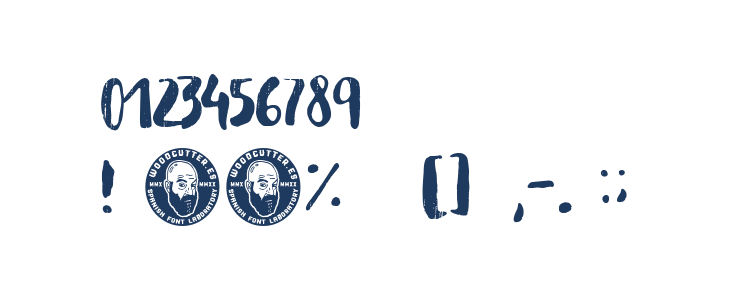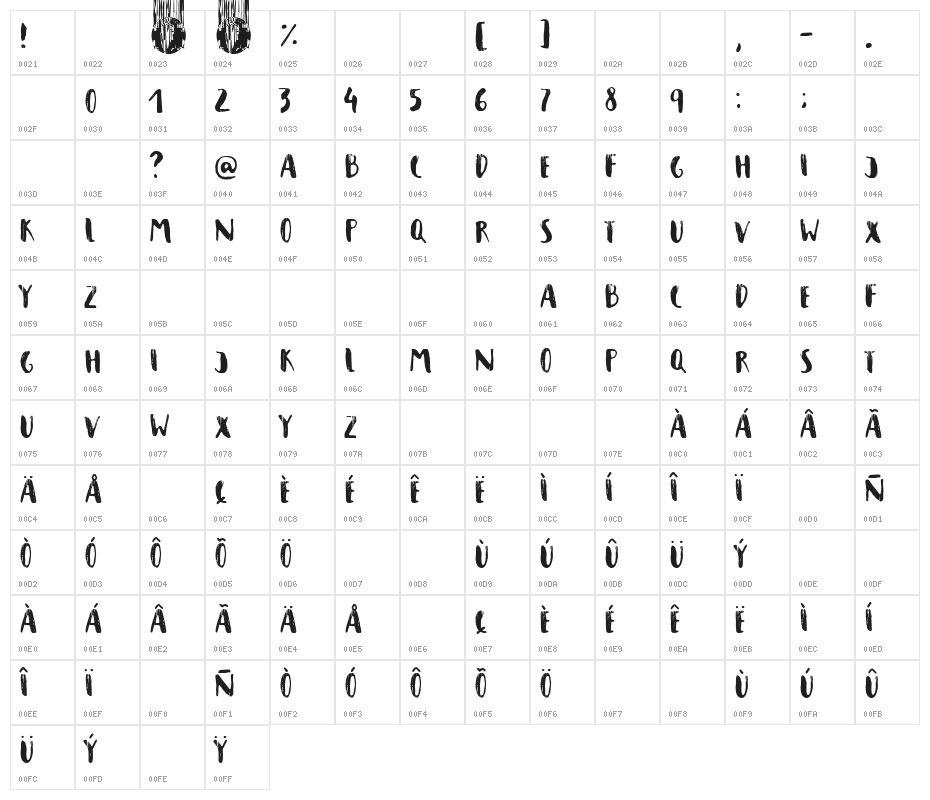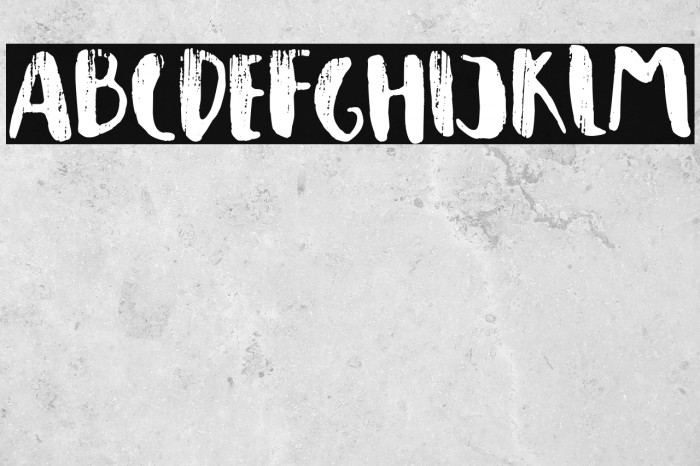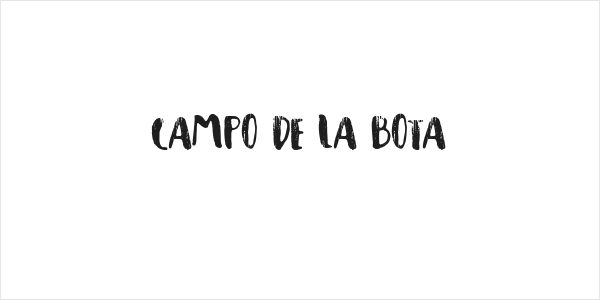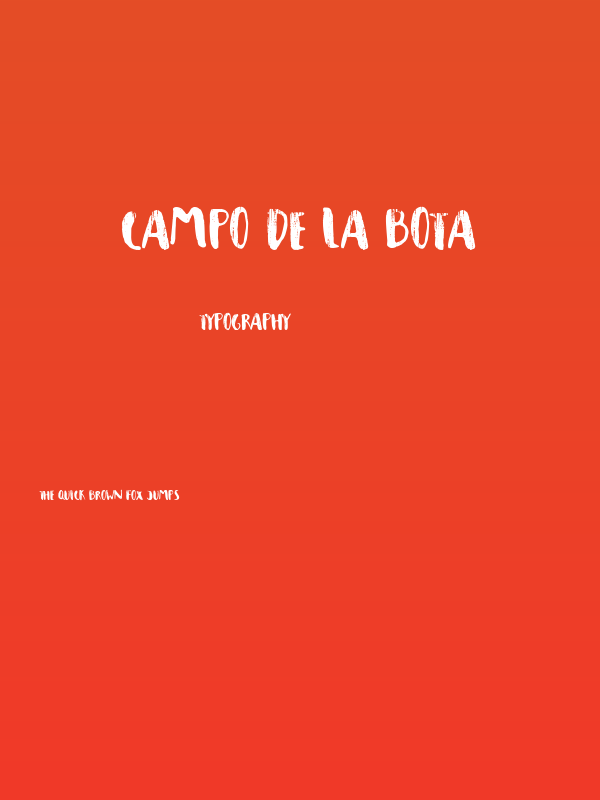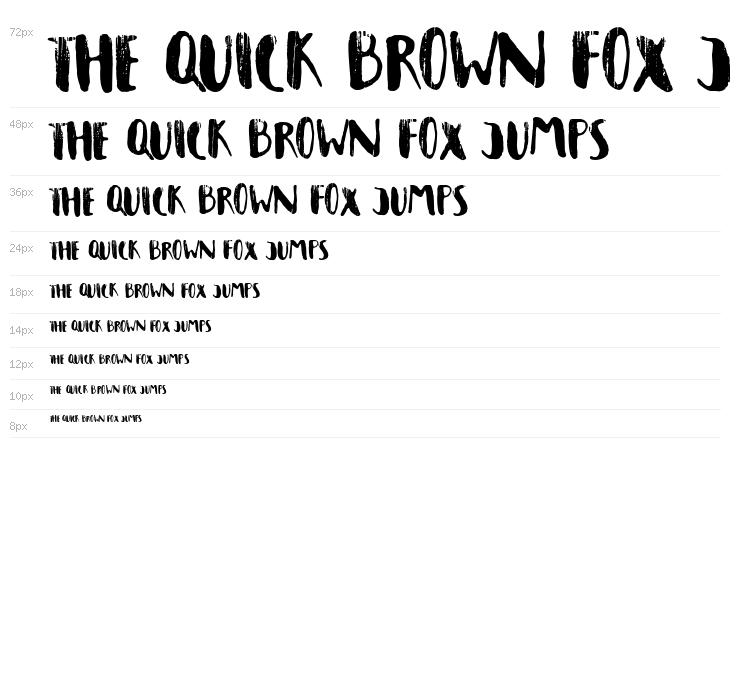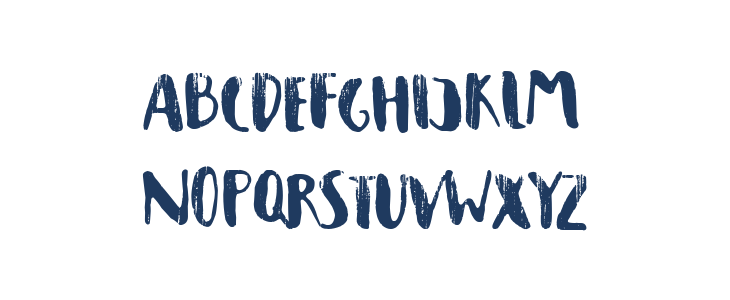
Campo de la Bota Font
Campo de la Bota Description
This font features a bold and expressive brush style, characterized by its rough, textured strokes that give it a hand-painted appearance. The letters are unevenly weighted, adding a dynamic and energetic feel. The uppercase and lowercase letters maintain a consistent style, while the numbers and special characters complement the overall aesthetic. This font's unique, artistic flair makes it stand out, ideal for projects that require a strong visual impact.
| Overall Style | Artistic, Expressive |
| Proposed Projects | Ideal for posters, album covers, branding, and any creative project that requires a bold, artistic touch. |